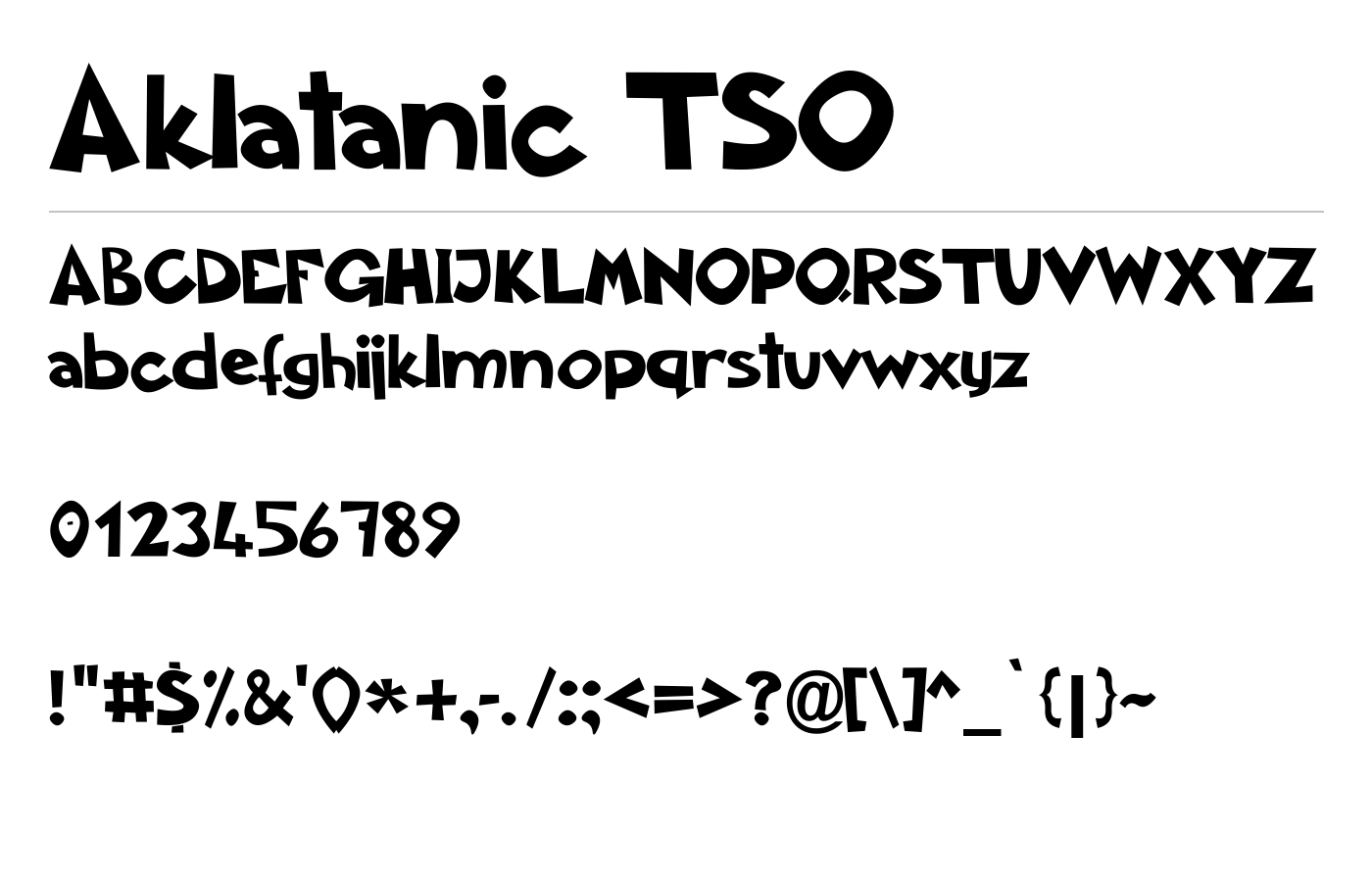
Aklatanic TSO is a playful and quirky sans serif font with bold, irregular letterforms that create a lively and informal feel. Its uneven strokes and whimsical shapes make it perfect for fun, casual branding, children's books, or creative projects where a friendly and approachable vibe is desired. This font works best in headlines or display settings, adding personality and energy to any design.
Aklatanic TSO Font
About Aklatanic TSO Font